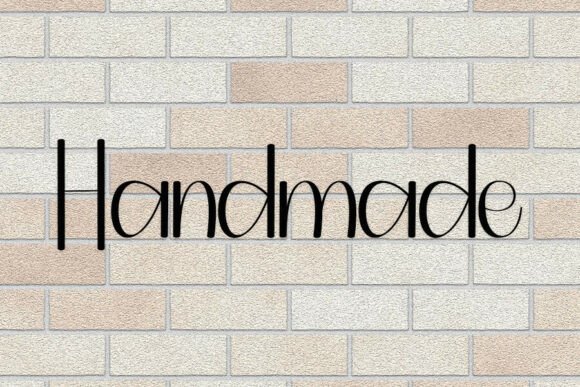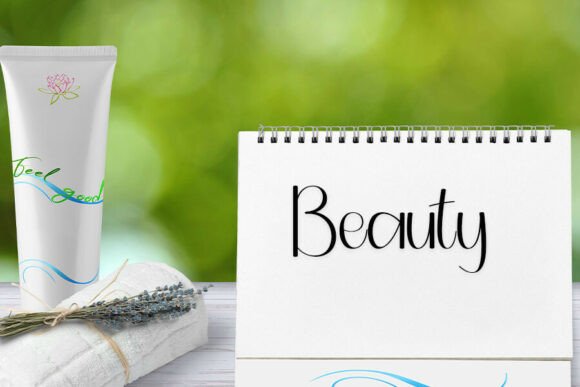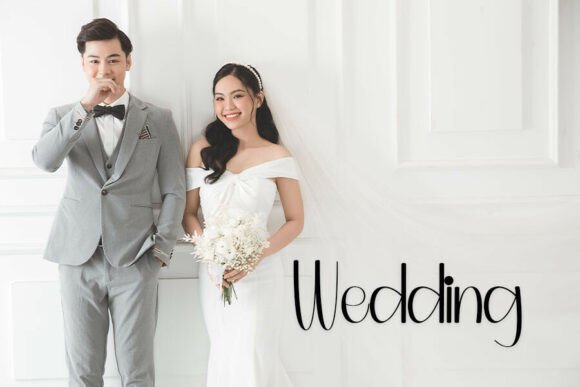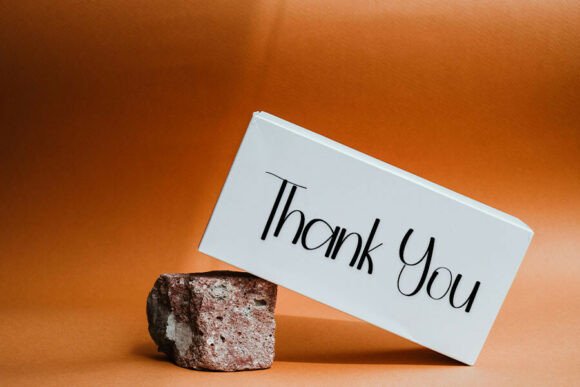
Introducing Disney Font: The Ultimate Choice for Elegant and Whimsical Designs
Are you a designer or crafter looking for a font that can add a touch of magic to your projects? Look no further than the Disney Font, a sweet and cursive handwritten font that is sure to delight. With its gentle and elegant strokes, this font is perfect for a variety of design ideas, from branding and logos to wedding stationery and greeting cards.
The Characteristics of Disney Font
Disney Font is a beautifully crafted handwritten font that exudes a sense of joy and romance. Its cursive strokes are smooth and flowing, making it perfect for designs that require a touch of elegance and sophistication. The font is highly versatile and can be used for a wide range of projects, including:
- Branding and logos: Add a touch of whimsy and personality to your brand with Disney Font.
- Wedding stationery: Create beautiful wedding invitations, save-the-date cards, and more with this romantic font.
- Greeting cards: Make your greeting cards stand out with the elegant and cursive strokes of Disney Font.
- Fashion and lookbooks: Add a touch of glamour and sophistication to your fashion designs with this beautiful font.
- Marketing promotions: Use Disney Font to create eye-catching promotional materials that will grab the attention of your audience.
Why Choose Disney Font?
So, why choose Disney Font for your design projects? Here are just a few reasons:
- Elegant and sophisticated: Disney Font has a timeless elegance that will add a touch of sophistication to any design.
- Highly versatile: This font can be used for a wide range of projects, from branding and logos to wedding stationery and greeting cards.
- Easy to read: Despite its cursive strokes, Disney Font is highly legible and easy to read, making it perfect for designs that require a clear and concise message.
- Unique and creative: With its whimsical and romantic strokes, Disney Font is sure to make your designs stand out from the crowd.
Tips for Using Disney Font
Here are a few tips for using Disney Font in your design projects:
- Pair it with bold fonts: Disney Font pairs perfectly with bold fonts, creating a beautiful contrast that will make your designs stand out.
- Use it for headings: Disney Font is perfect for headings and titles, adding a touch of elegance and sophistication to your designs.
- Experiment with colors: Disney Font looks beautiful in a range of colors, from soft pastels to bold and bright hues.
- Don’t be afraid to get creative: Disney Font is a versatile font that can be used in a wide range of designs, so don’t be afraid to experiment and try new things.
In conclusion, Disney Font is a beautiful and versatile font that is perfect for designers and crafters looking to add a touch of elegance and whimsy to their projects. With its cursive strokes and romantic feel, this font is sure to delight and inspire. Whether you’re creating branding materials, wedding stationery, or greeting cards, Disney Font is the perfect choice for any design project that requires a touch of sophistication and elegance.